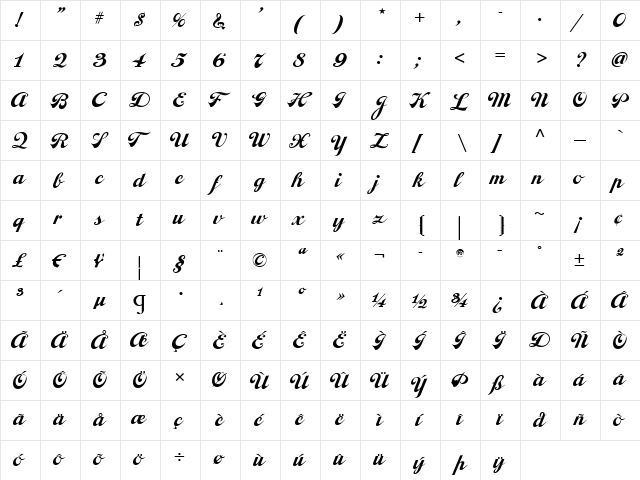
MoonshineScriptNF Regular
| Foundry | Nick's Fonts |
| Designer | Nick Curtis |
Design Context for MoonshineScriptNF Typeface
MoonshineScriptNF brings a calligraphic fluidity to the page — its connecting strokes and expressive curves give it an unmistakably human quality.